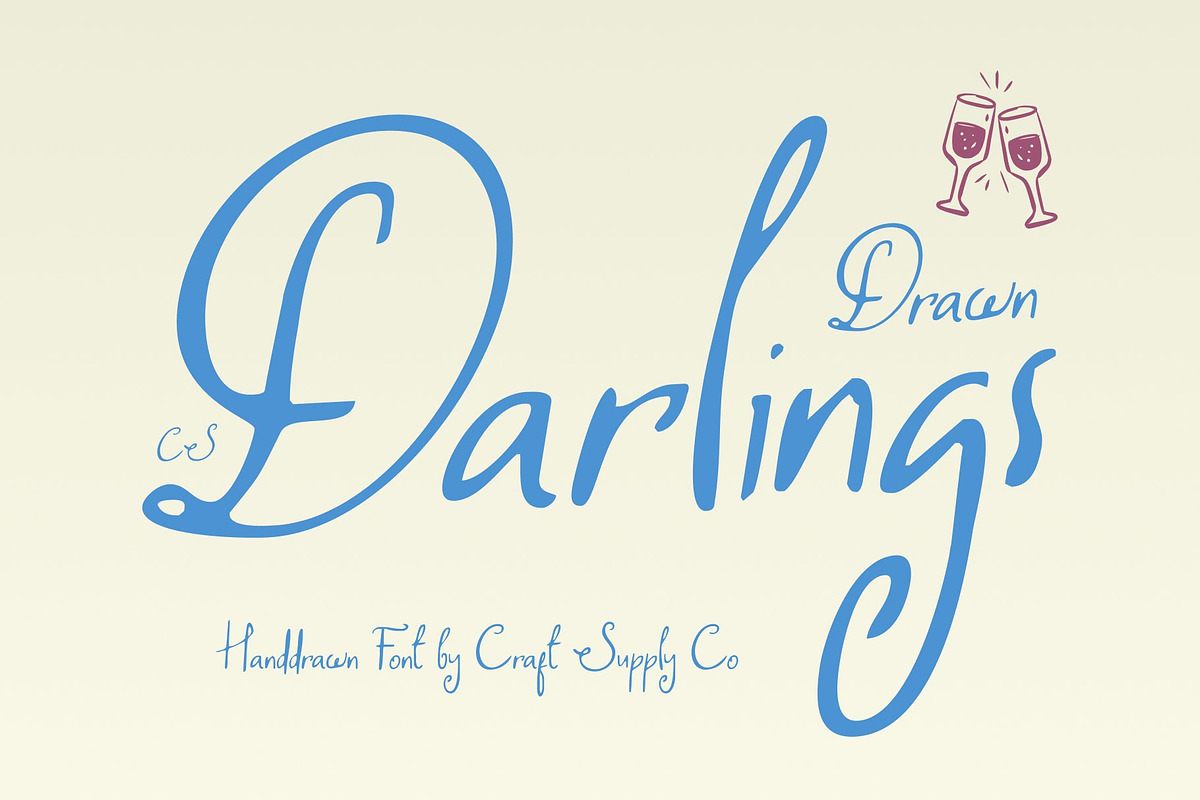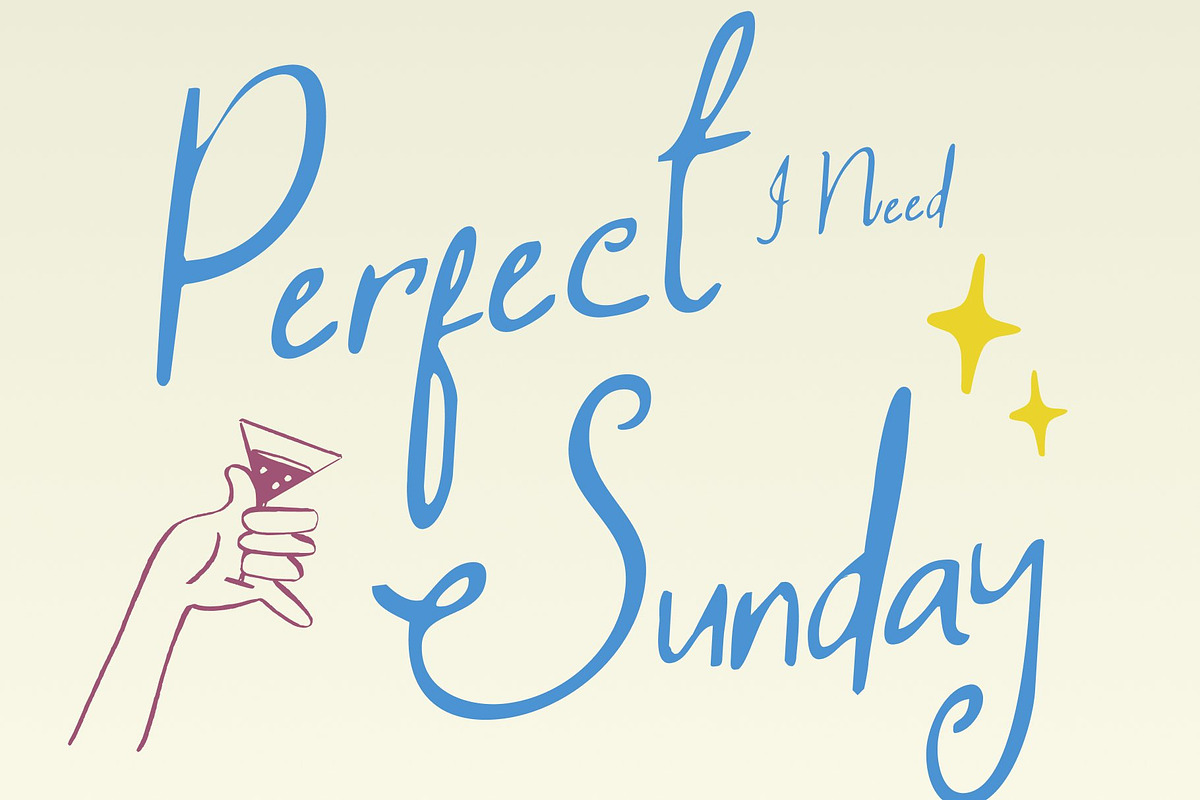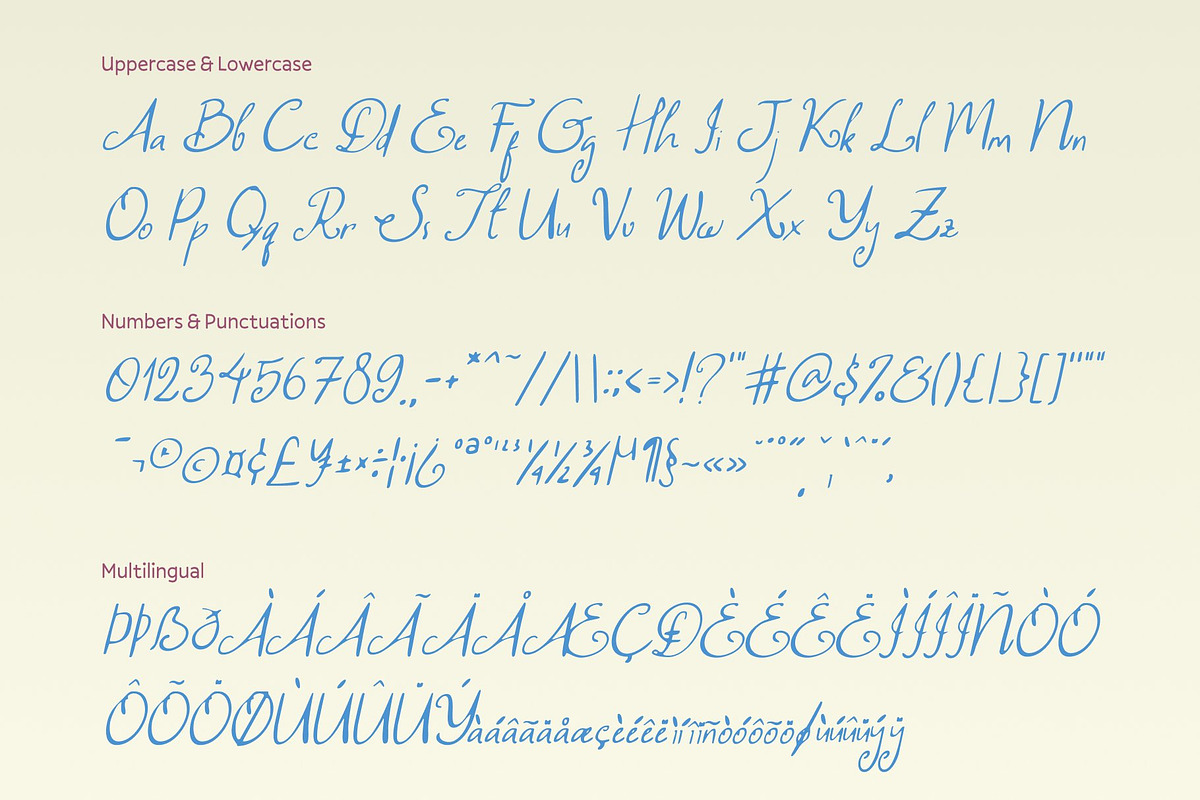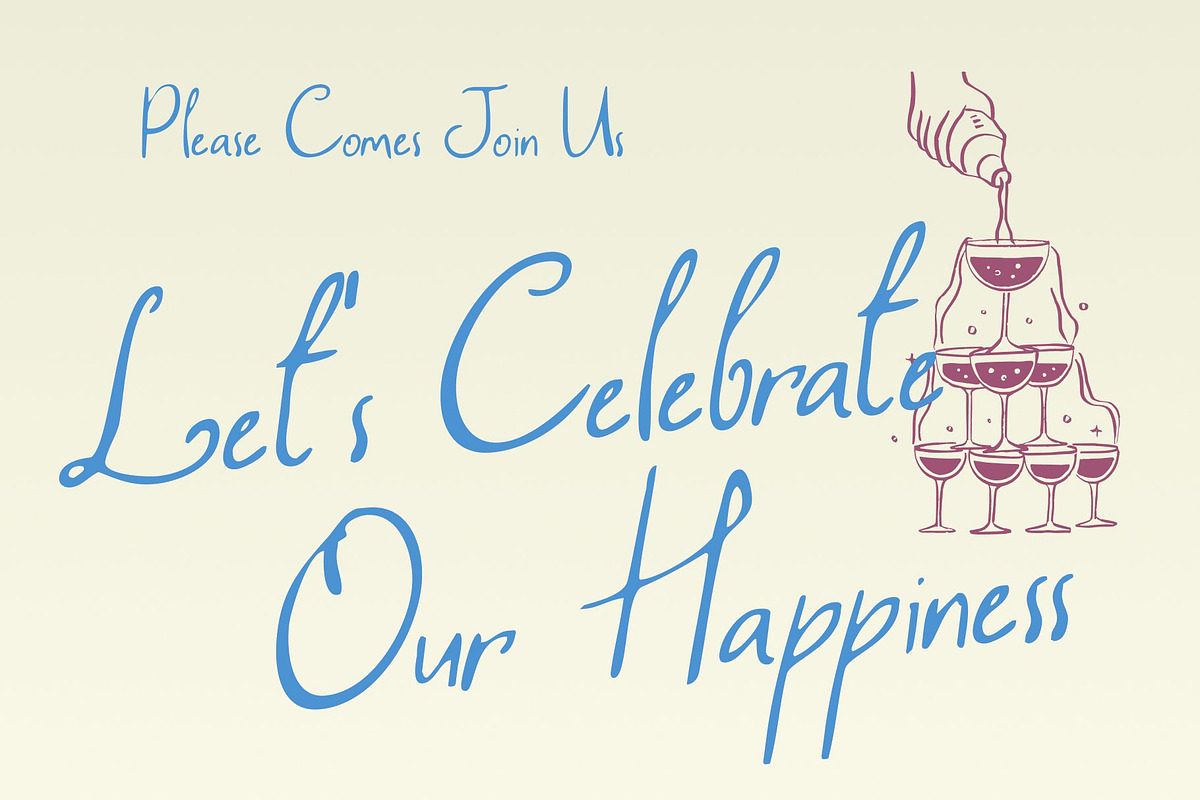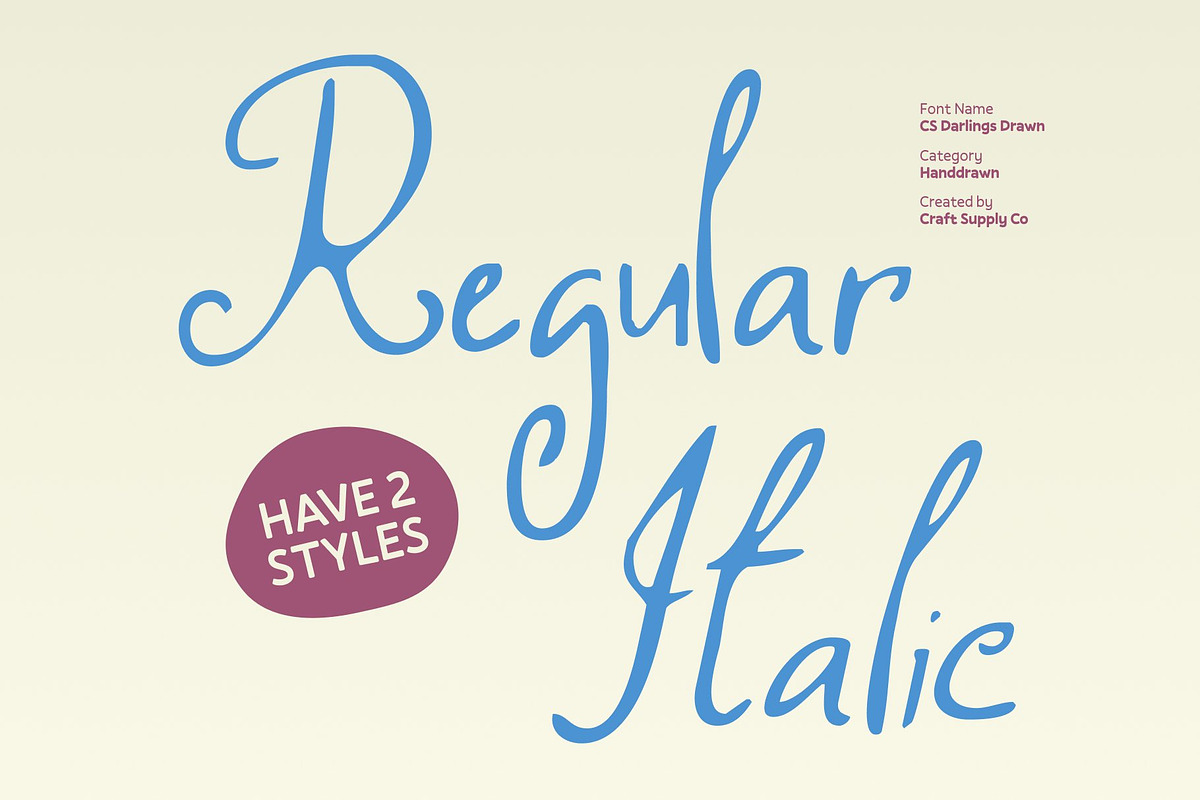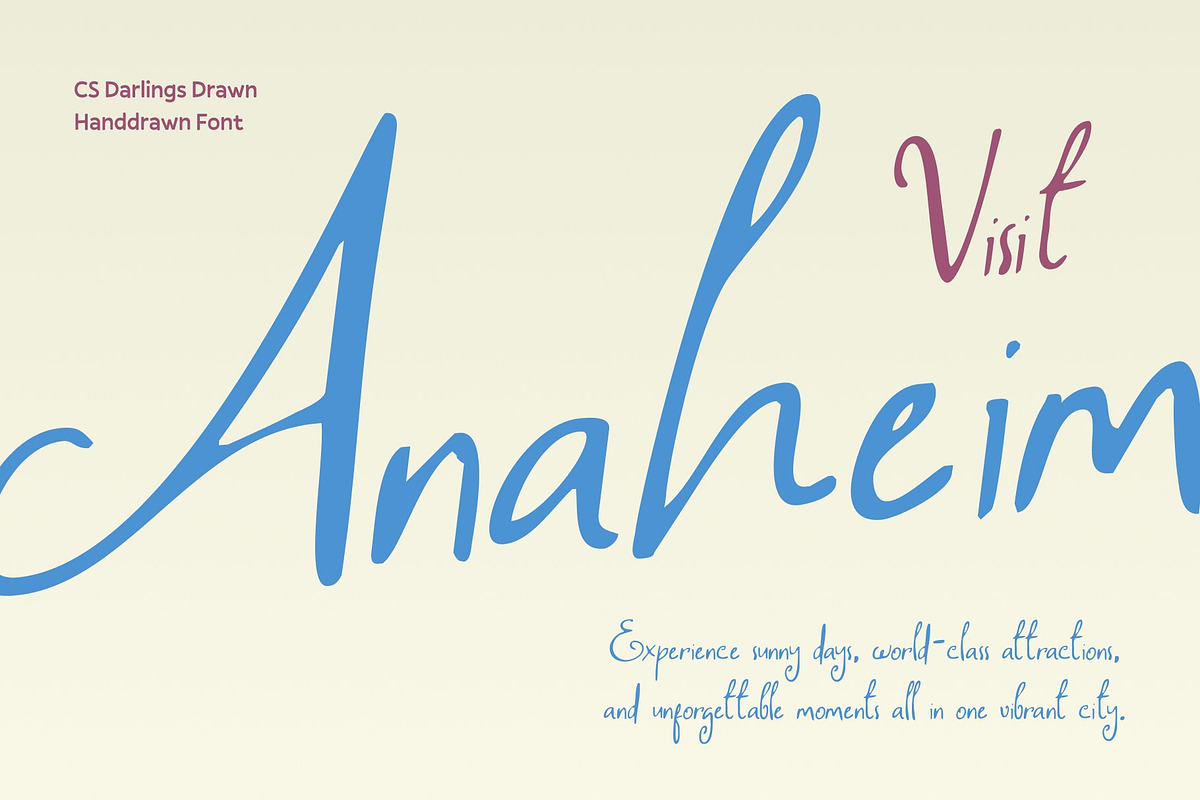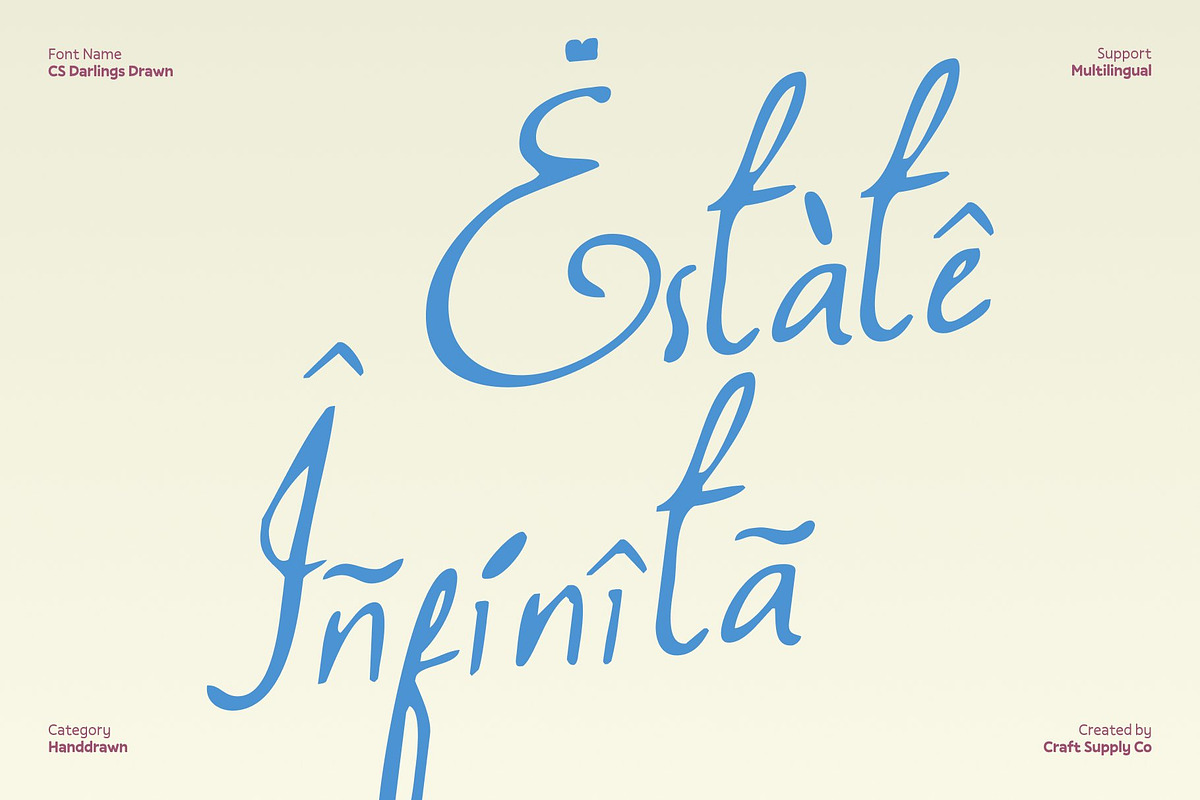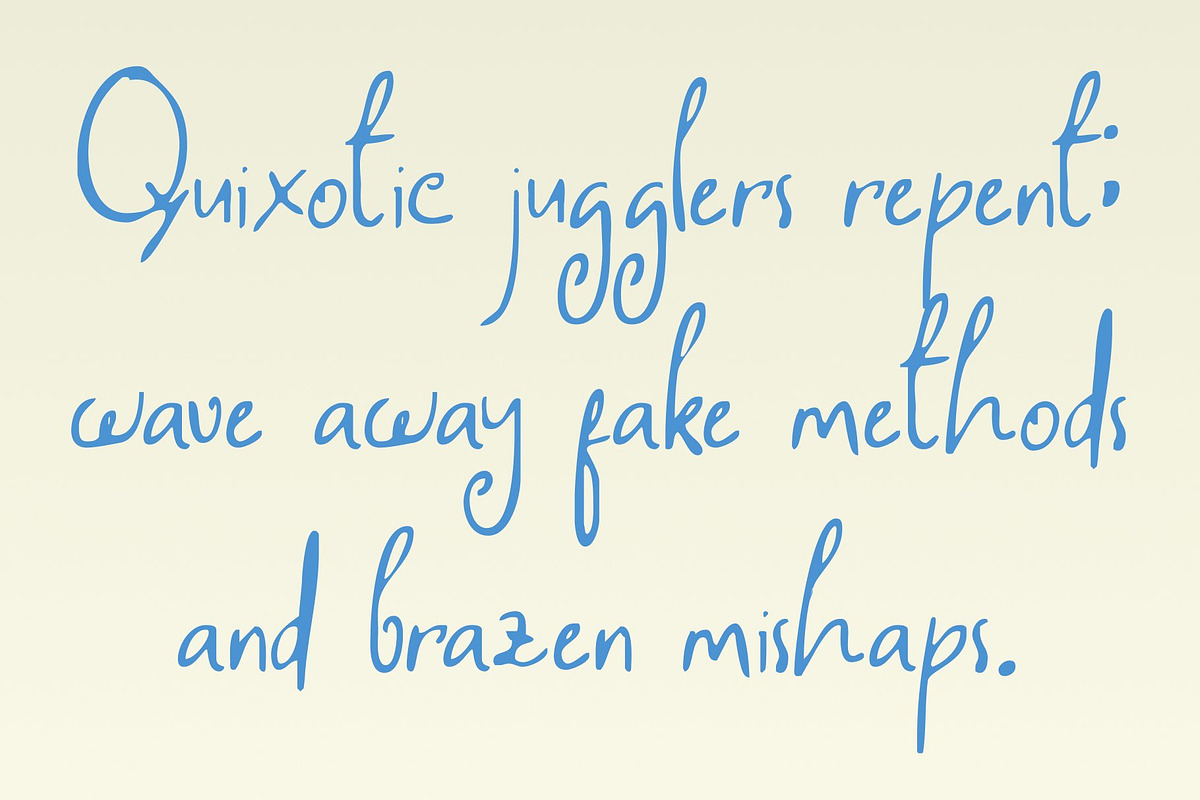
CS Darlings Drawn
CS Darlings Drawn – Handwritten Script Font with Romantic Whimsy
Graceful, Whimsical Flow This is a handwritten script font that combines romantic elegance with playful, whimsical charm. Its flowing letterforms bring a sense of magic and softness to every word, creating a natural, lively rhythm that feels both enchanting and approachable.
Fluid Strokes for Emotional Expression Each character features smooth curves and delicate connections, capturing the warmth and intimacy of personal handwriting. The drawn effect adds subtle texture, giving every letter a handcrafted, unique personality that radiates romance and charm.
Magical Elegance Meets Personal Style Blending fantasy-like whimsy with refined script details, this font evokes both sophistication and imagination. Its graceful movement makes it perfect for designs that need a soft, expressive, and storytelling-driven typographic voice.
Perfect for Weddings, Celebrations, and Romantic Branding Ideal for wedding invitations, party stationery, greeting cards, elegant posters, and romantic branding, this font transforms text into a heartfelt, visually captivating experience. Every layout gains personality, emotion, and timeless beauty with its enchanting, handcrafted style.